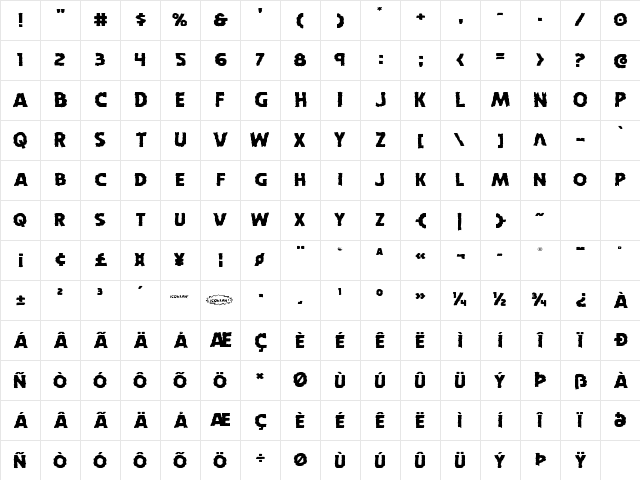
Horroween Expanded Expanded
Style: Expanded
Complete Horroween Expanded glyph index. Displaying only characters natively supported by Horroween Expanded font.
Design Context for Horroween Expanded
Horroween Expanded is a composed and adaptable typeface that performs quietly and consistently across a wide range of design contexts.
Pro Tip: Use Horroween Expanded in both headline and body roles to test its range before committing to a single application.